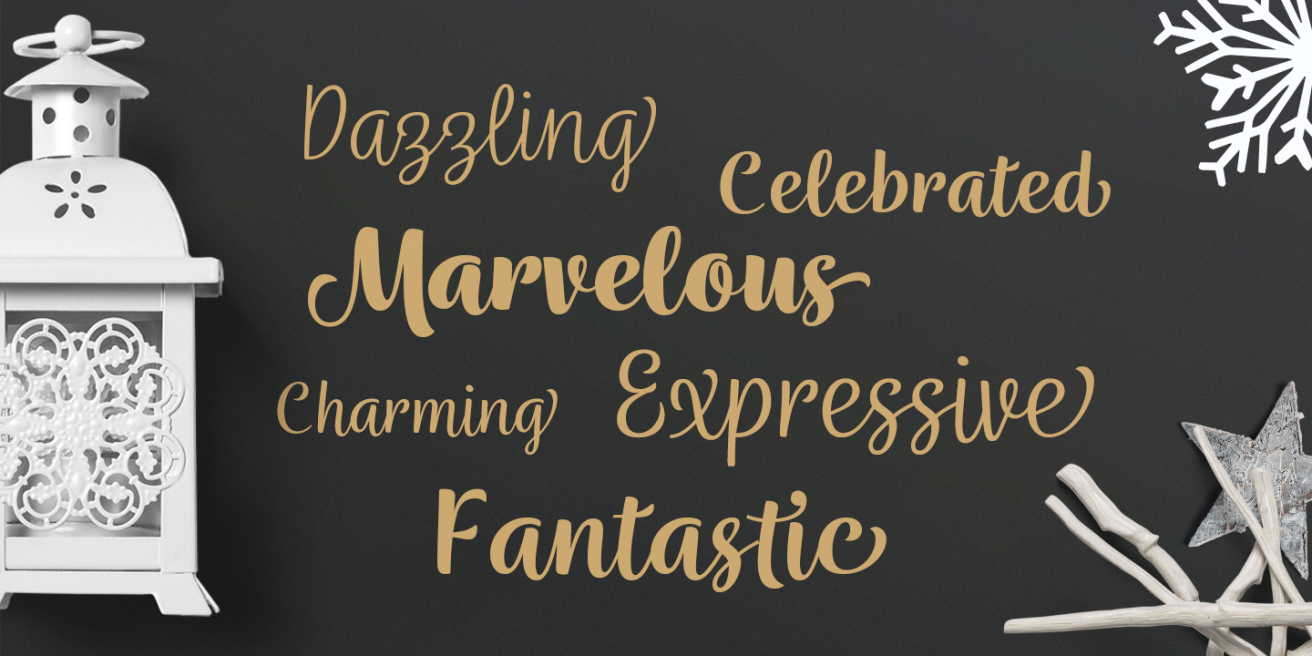
Today in Underlined we’re going to highlight a holiday font. Wait, come back! I
don’t mean a silly Santa or reindeer dingbat font that you chuckle at and then
move on. Wreath is an honest-to-goodness holiday inspired font that has usage
way beyond this month. Insigne Design took the best and most widely applicable
parts of the holiday season and incorporated them seamlessly into this font
family.
Most importantly, it’s warm and inviting. It has a heftier weight with high
stroke definition and a fluidity to the characters as well. You can choose from
all sorts of ligatures and connecting characters, letting you pick the style
that fits. From there, you start to add some real variation.
Wreath is also generous, coming with multiple styles and variations
for a low price. Standard in many brush scripts is a Rough version, but Wreath
also includes other alternates styles like Wood, Print, and Halftone. The Wood
style contains only a subtle amount of texture, meaning you’re not forced to use
it in only one kind of situation. Halftone looks unique and stylized at display
sizes and blends in at small sizes.
Even though Wreath has plenty of holiday themed posters and holiday
related dingbats, this family does not limit you to Christmas related designs!
Take a closer look and you’ll see something that’s useful in a variety of
mediums across all times of the year. Any time you want to make something look a
little more personal and human, Wreath is a font you should consider.